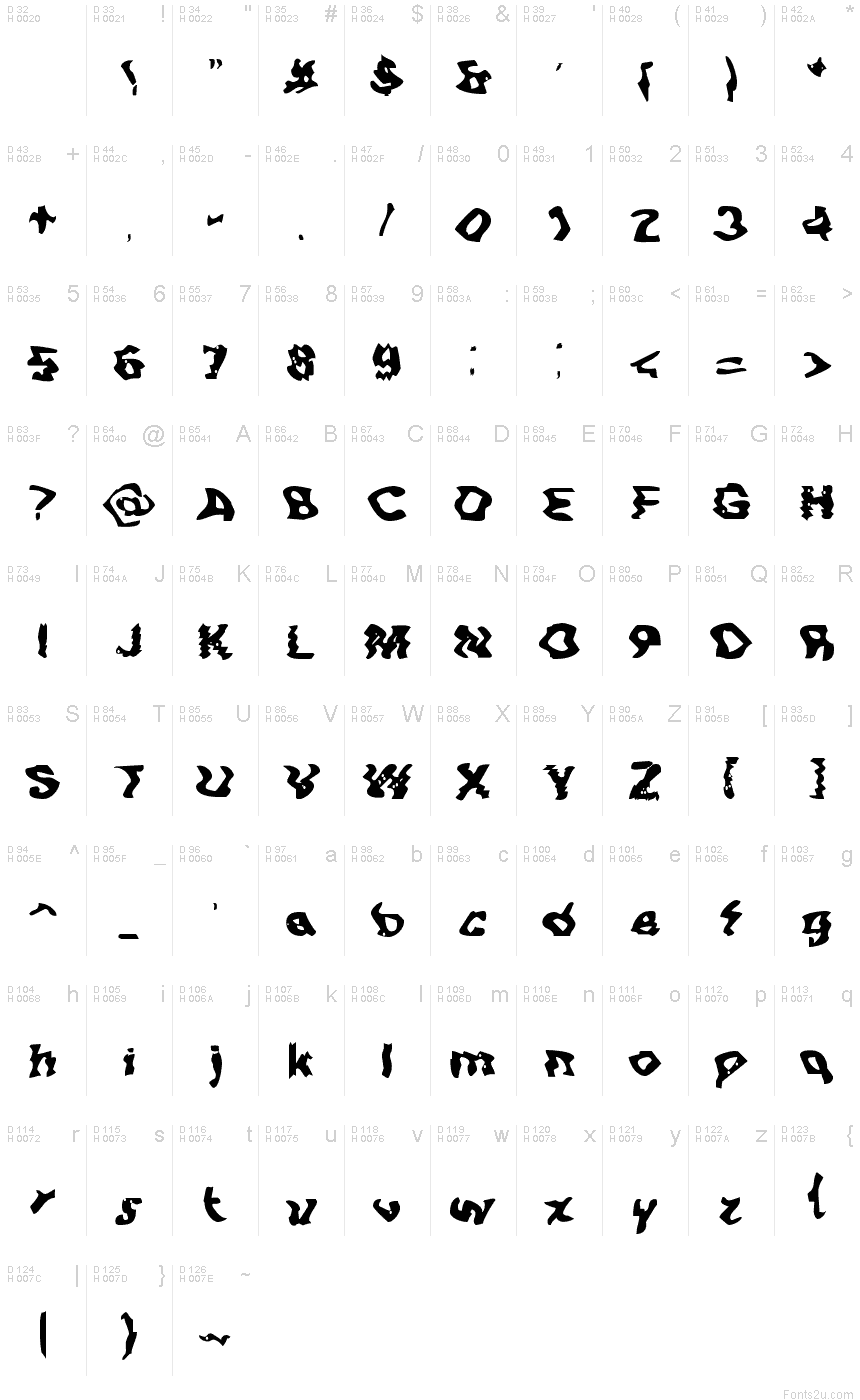
BN-Buzz!
BN-Buzz! font by Ben Nathan is a free distorted display typeface that looks like it’s been yanked, twisted, and splashed across the page. The thick, inky strokes and off-kilter curves give each word a woozy, electric energy, as if the letters are vibrating from loud music or late-night chaos. It’s bold, dense, and wonderfully unruly, grabbing attention even from a distance.
Using BN-Buzz!, you can push titles for gig posters, horror movie graphics, underground party flyers, zines, skate decks, sticker packs, and YouTube thumbnails into full-on cult classic territory. This free font works best big and loud, letting its warped silhouettes stay legible while doing the visual shouting for you. Try pairing it with a plain, narrow sans-serif for body text to anchor all that wild motion.